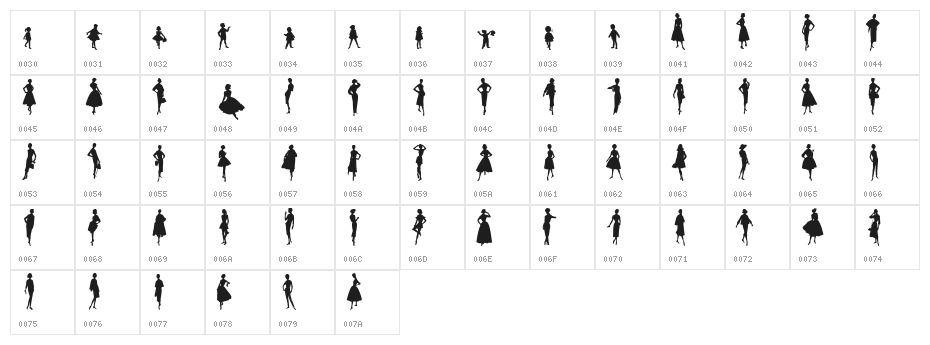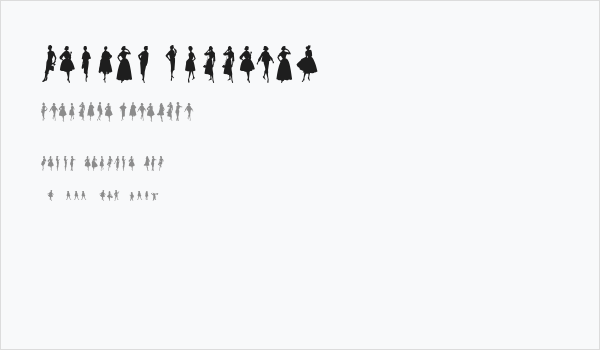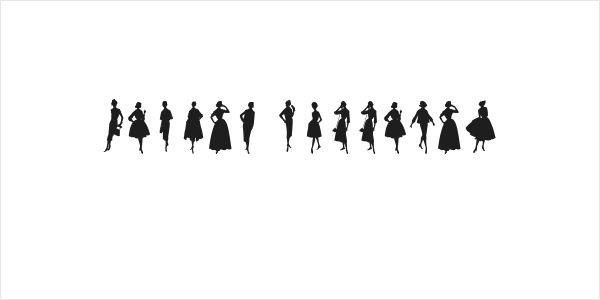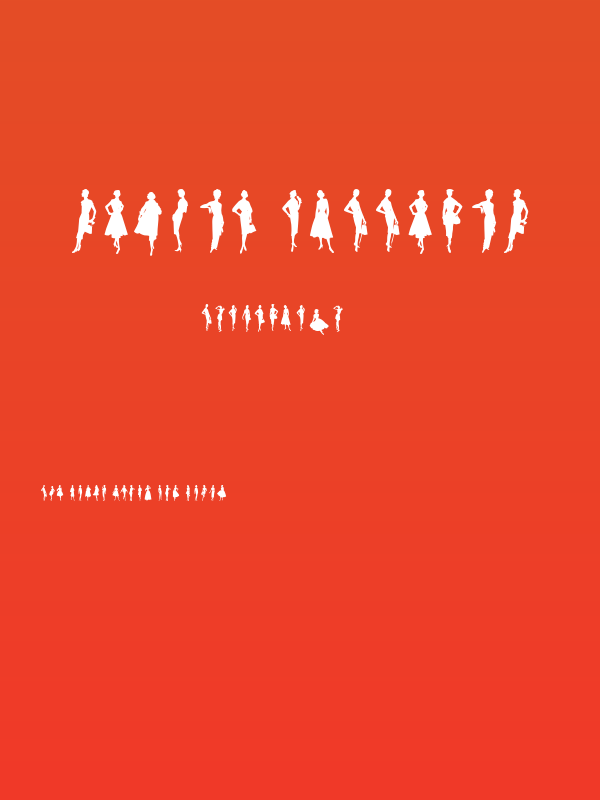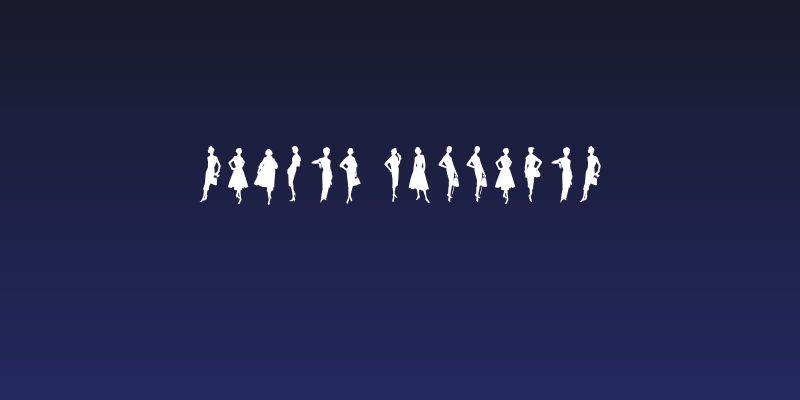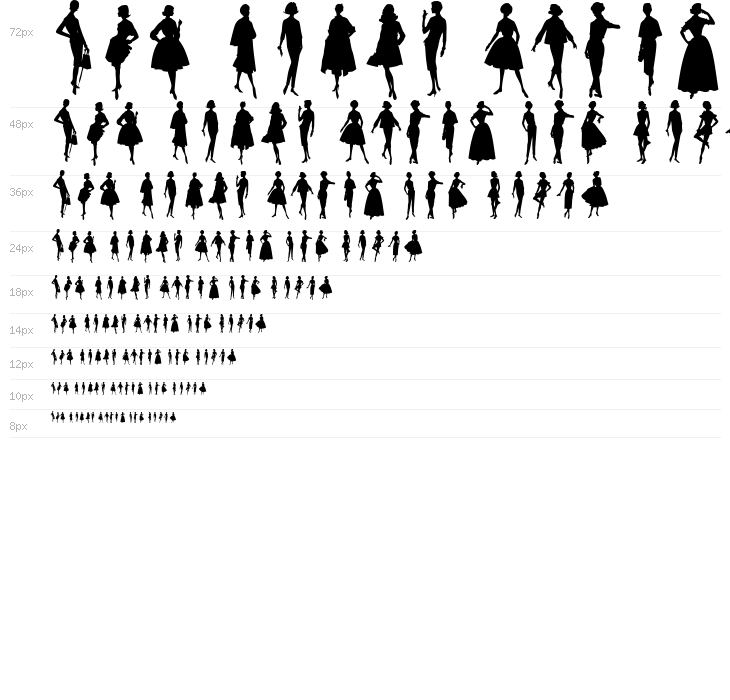
Sewing Patterns Font
Sewing Patterns Description
A decorative font featuring silhouettes of women and children in various vintage fashion poses, reminiscent of sewing pattern illustrations. Each character is represented by a unique figure, emphasizing mid-century style and elegance.
| Overall Style | Vintage, Decorative |
| Use Case | Logos, Headlines, Themed graphics, Decorative initials |
| Proposed Projects | Fashion branding, sewing pattern packaging, retro-themed posters, invitations, craft projects. |